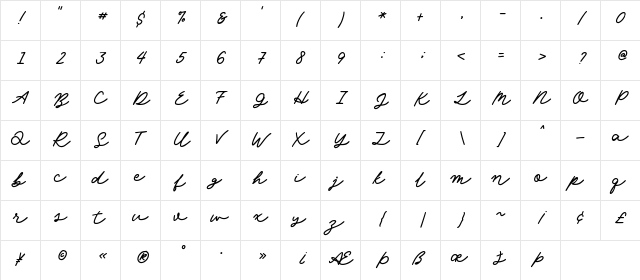
Angel Rose Demo Font Preview
Angel Rose Demo
| Designer | Jennifer Chow |
Design Context for Angel Rose Typeface
Angel Rose takes a measured approach to typography — its balanced proportions and neutral character make it a reliable workhorse for both digital and print work.